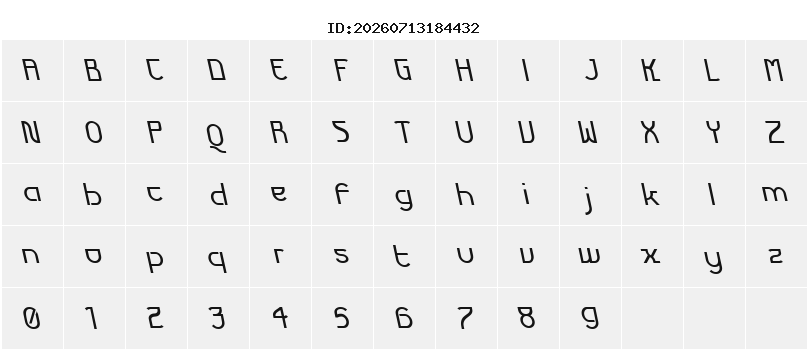
• Font Name: Back to the Futurex
• Designer: Su Lucas, Graham Meade & Apostrophe
• Description: The font included in this package was designed by Su Lucas as part of the Futurex project, that Apostrophe and Graham Meade put fourth in May of 2000, when they invited every type designer and/or enthusiast to make their own version of Futurex. Here are the details of the project, as proposed by Graham Meade and Apostrophe: Graham and Apostrophe are hoping their Futurex fonts would be the beginning of a universal type design project. One of the seven fonts is called Futurex Parts. It contains all the different parts that were used in constructing the characters of all the Futurex variations that are contained with this file. The reason we included Futurex Parts in this zip is simply because we want to invite everyone with a font editing program to build their own variation of Futurex. Graham and I believe that Futurex can undergo many more spins than the alternates and variations we have included here so far, so we'd like you to exercise your imagination to add more fonts to the Futurex family. Graham and Apostrophe will be releasing more Futurex variations of their own in the future, but they would like everyone to participate in making Futurex the largest free font family ever. We'd like this to be the largest free type cooperative ever made, with contributors from all over the world. As with every large public project ever made, there are conditions. But don't let this be a turn-off to you, because we kept them minimal and common. So here go all three of them: 1 - If you do use Futurex Parts to build your own font, name your font as a style of Futurex (like Futurex Wacko, Futurex Perhaps, Futurex Spun, Futurex Toasted, etc.). Name your style anything you like, but please keep Futurex as the font name. 2 - If you do use Futurex Parts to build your own font, please contact us and let us know when you've finished, so that we can add it to the family and give you proper credit for its creation. This would also serve as good means to maintain a list of all the used style names (if you decide to make a Futurex Blunt, for example, and someone had already made that style, you'd have no way of knowing if the style name is taken if you don't check with us first). Please email apostrophe@apostrophiclab.com or graham@apostrophiclab.com 3 - If you do use Futurex Parts to make your font, please avail the font as a free download for all. Nothing about the Futurex Project was, is or will be devised with the intention of commercial revenue. Please keep it that way. We hope that you will contribute to this project and tell your friends about it. Let's make this the most significant statement ever made about free fonts. The original 7 Futurex fonts, including Futurex Parts, can be downloaded here: http://www.apostrophiclab.com Help yourself, and hopefully you'll be encouraged to make your own mix. Have a blast, and hopefully we'll see your version of Futurex soon.
Back to the Futurex.ttf is a modern, elegant sans-serif font designed for ultimate readability and visual harmony. Perfect for branding, headlines, web design, and print materials.